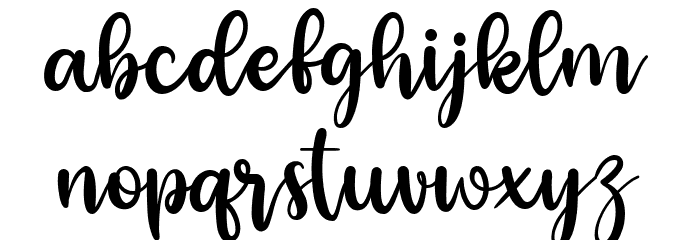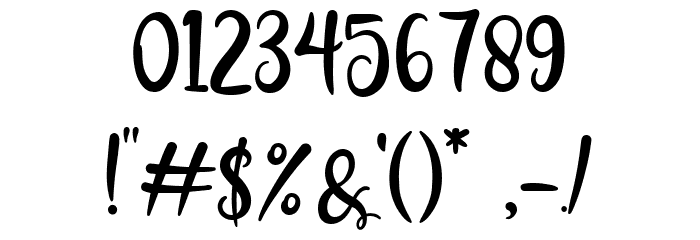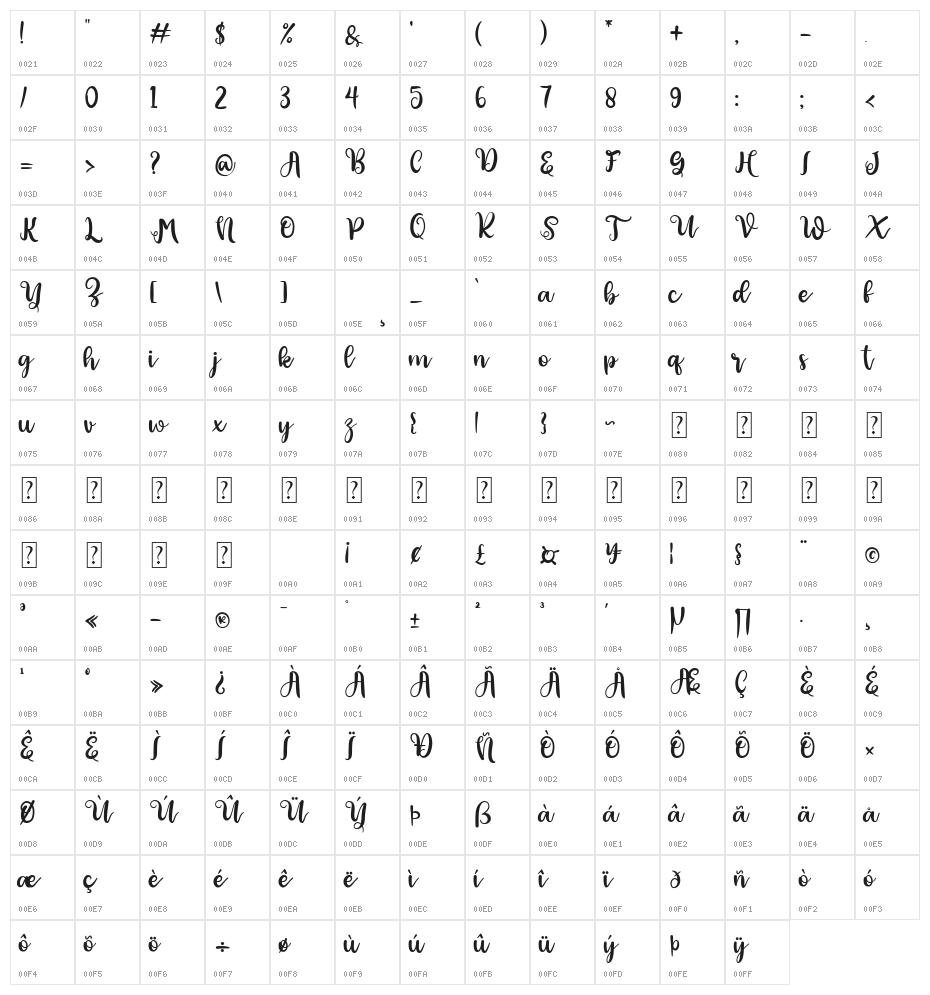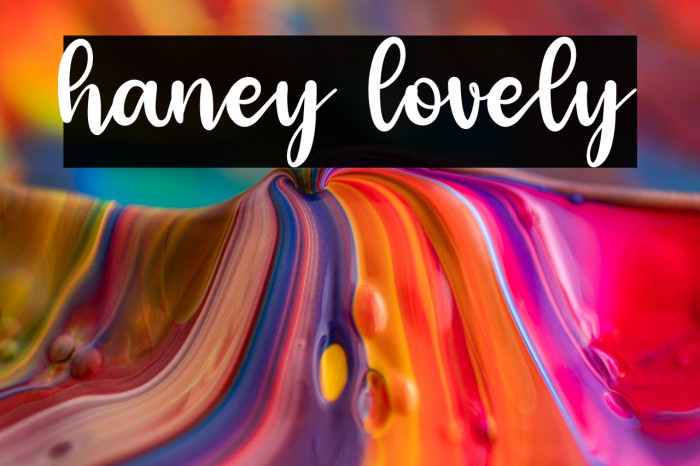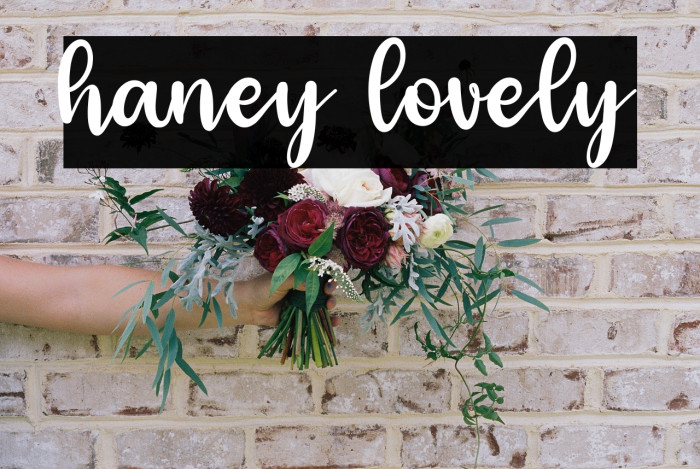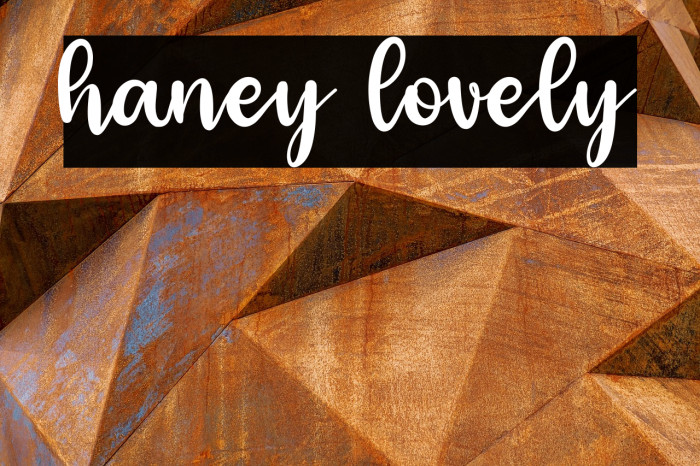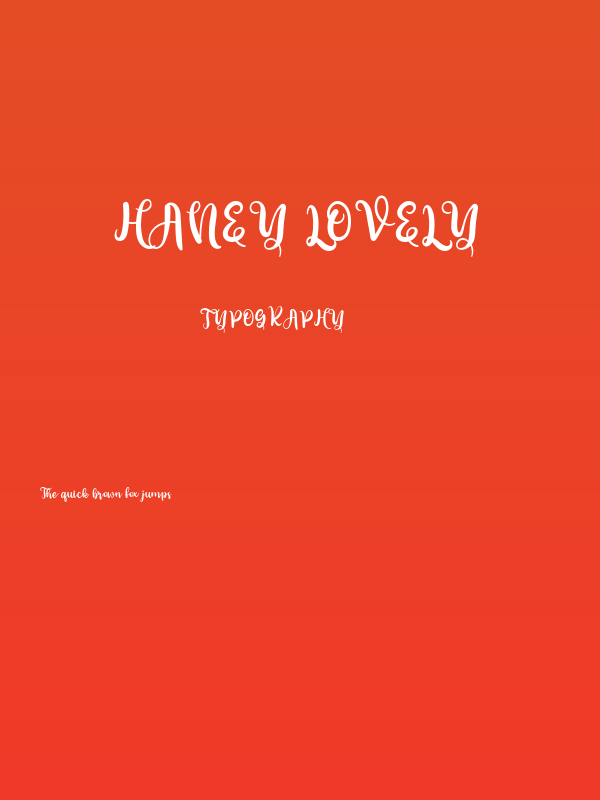
haney lovely Font
This font features a playful and elegant script style with a handwritten touch. The characters are fluid and connected, showcasing a smooth flow that mimics natural handwriting. The uppercase letters are ornate with swirling embellishments, while the lowercase letters maintain a consistent and harmonious appearance. The numerals are bold and clear, complementing the overall aesthetic. Special characters are designed with the same attention to detail, ensuring a cohesive look across all glyphs. This font exudes a sense of charm and sophistication, making it ideal for creative and decorative applications.
A playful and elegant script font with a handwritten style.
- Proposed Projects: Ideal for wedding invitations, greeting cards, branding, and social media graphics.
- Use Case: Logos, Invitations, Decorative text